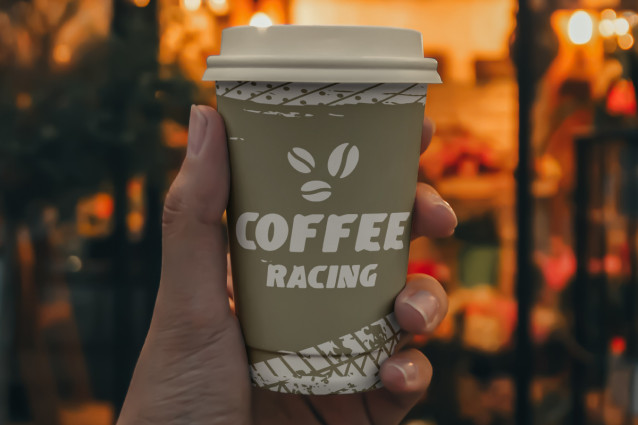
Big First Font
Big First Font is a bold playful and fun gaming racing typeface by RaisProject. This typeface has a unique and bold shape so it’s easy to read. It will be perfect for any designs, such as label, poster, invitation, stationery, custom design, product packaging, quotes, signage, brand image, advertisement, marketing material, website page, and more!